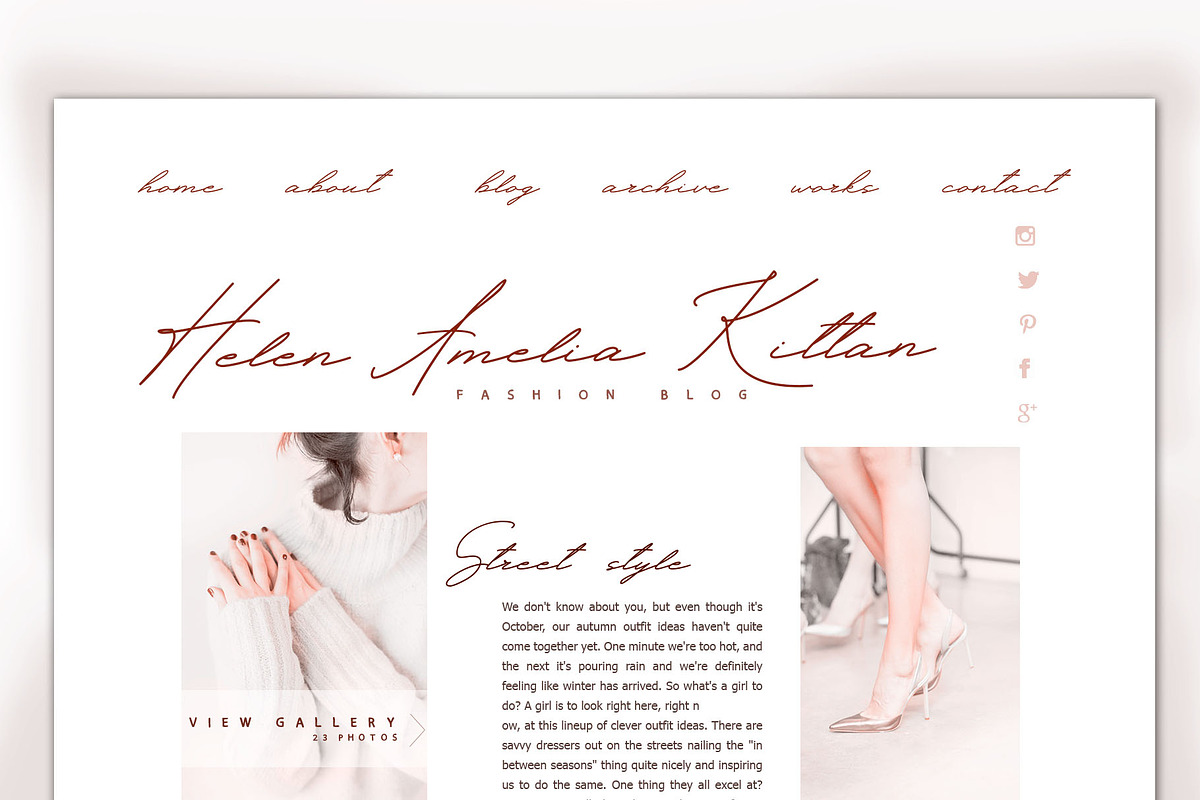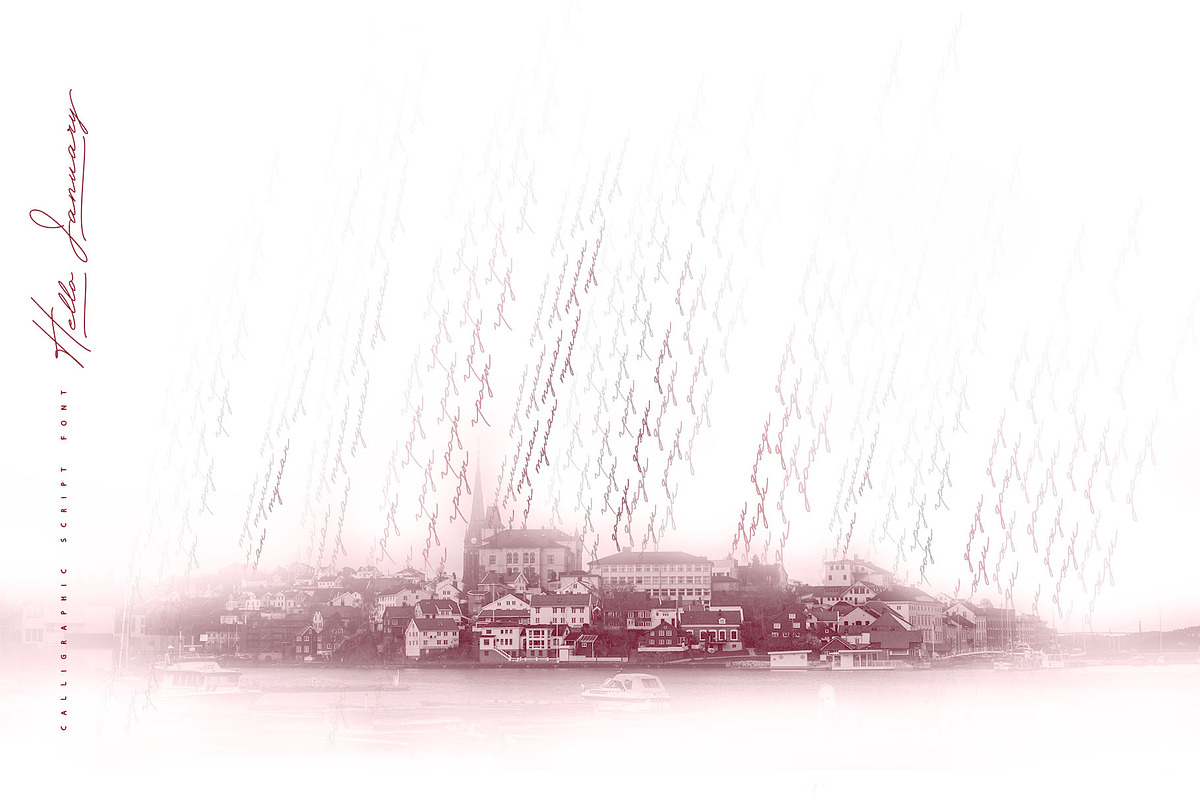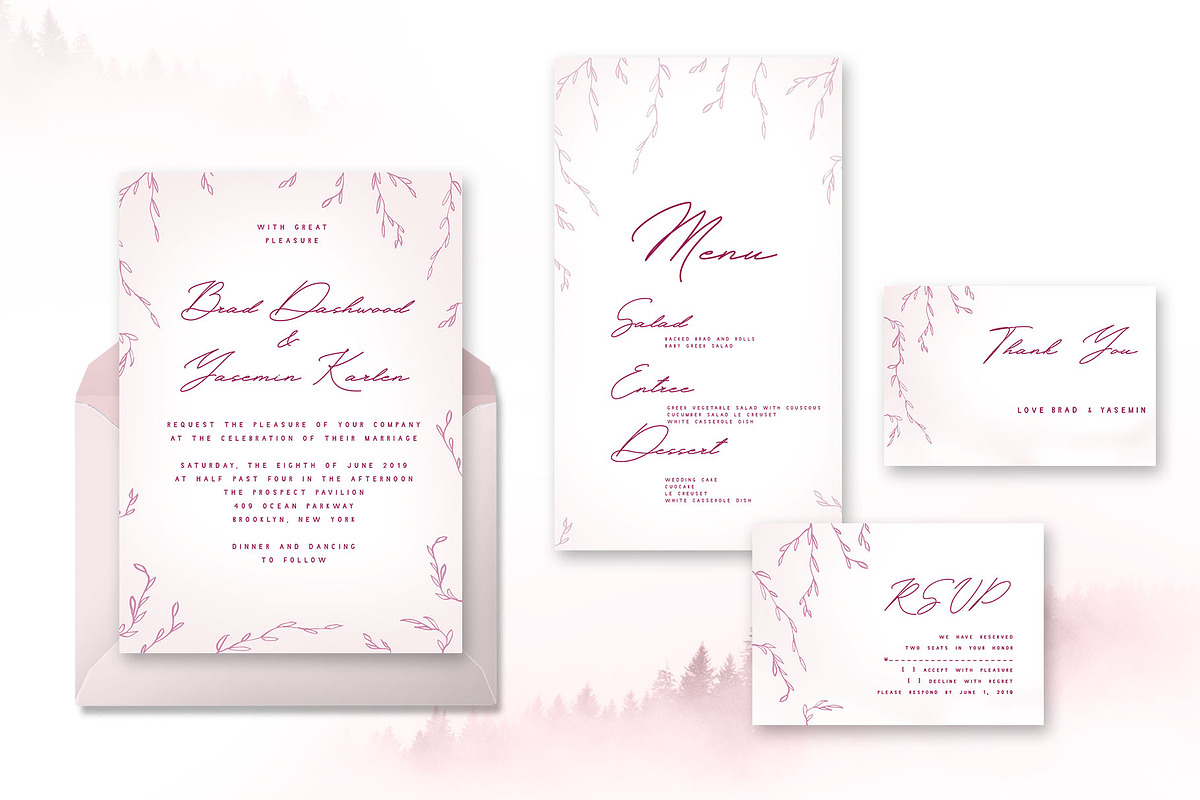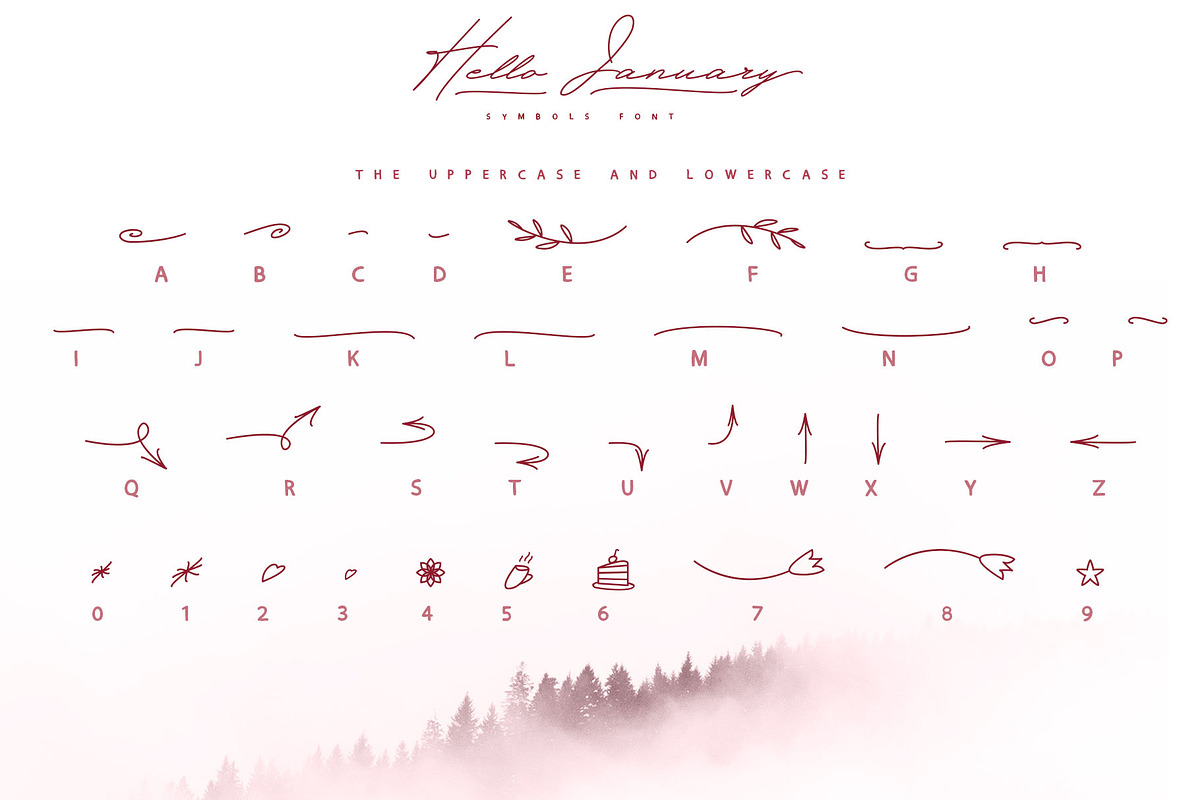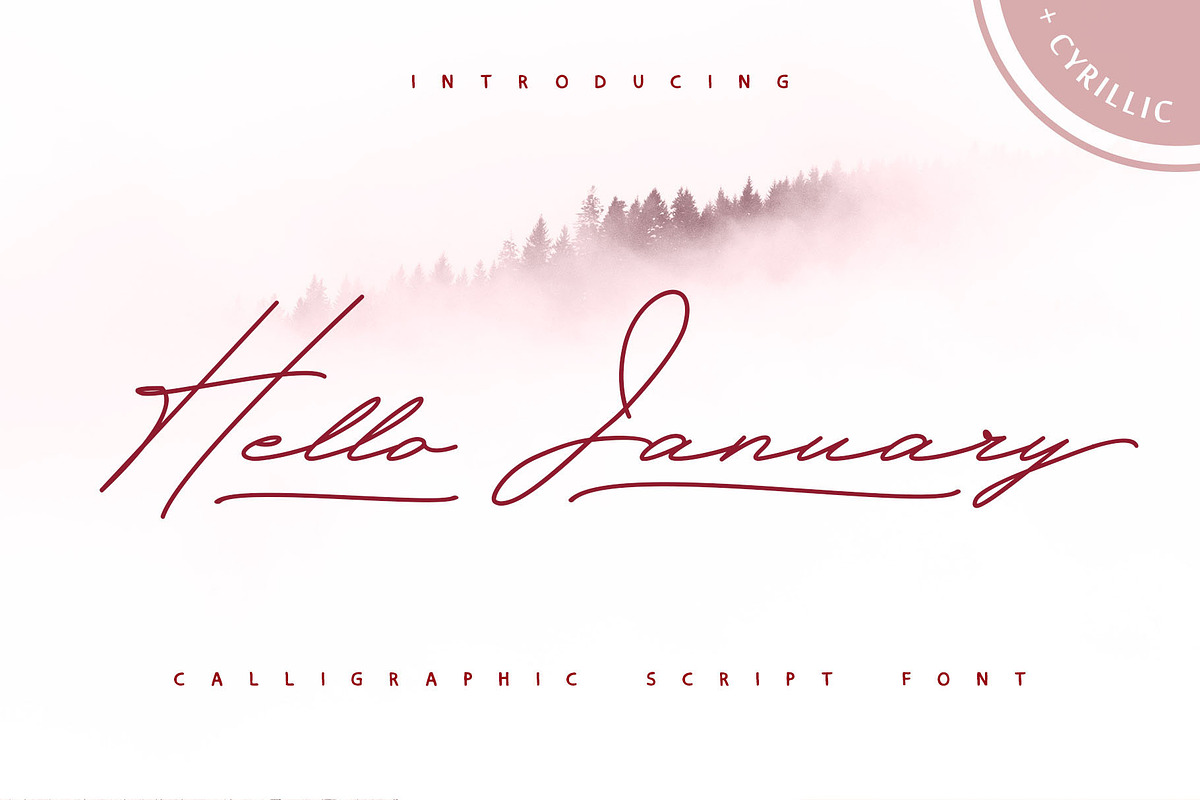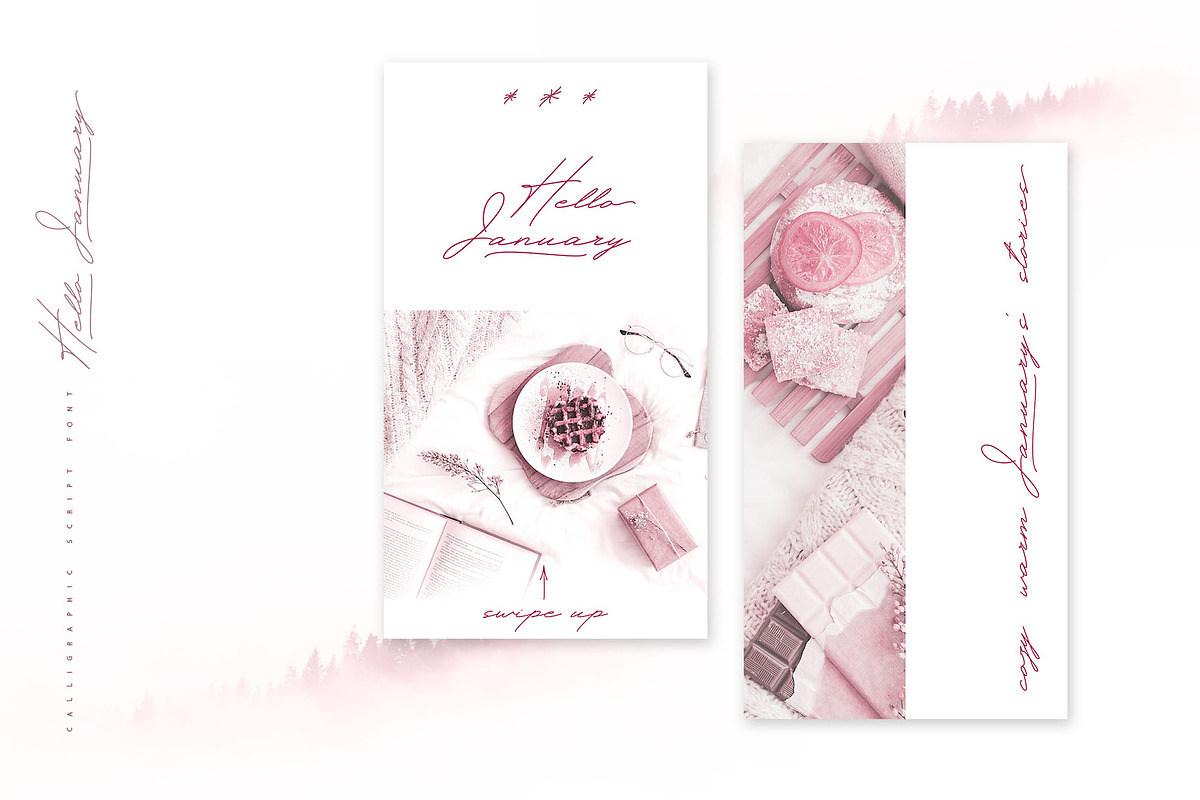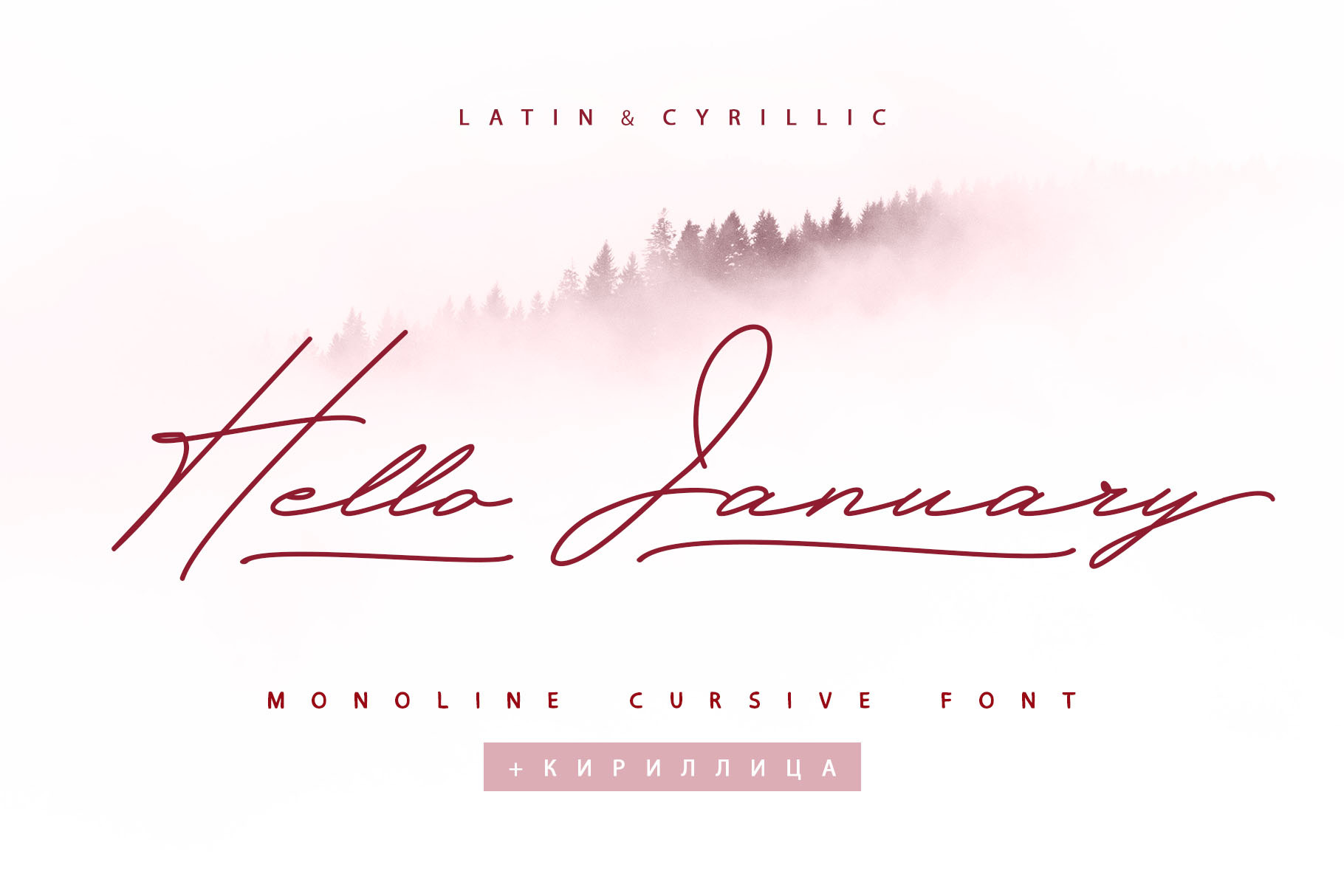
Hello January cursive font Cyrillic
Hello January script font is pretty monoline cursive will look gorgeous on all your designs, wedding stationery, love stories, branding materials, monoline logos, pretty teenage stickers, business and wedding cards, calligraphy Insta quotes, elegant fashion sketches, calligraphy love monograms and much more.
Hello January script font contain the Cyrillic glyphs too.
Hello January script font is a graceful cursive calligraphic script font, plus a Symbols font with 36 lovely hand-drawn swashes and illustrations!
Hello January script font contains a full set of uppercase and lowercase letters and can be used to create a handwritten calligraphy look. Hello January Symbols font with 36 hand-drawn elements, illustrations, and swashes and can help to make your design more original. Combine and arrange swashes and illustrations to create your own designs and make borders, frames, dividers, logos and more (just use A-Z or a-z keys in the included Hello January Symbols font). A different symbol is assigned to ever uppercase or lowercase standard character so you do not need graphics software just simply type the letter you need.
Multilingual Support for 31 languages: Latin glyphs for Afrikaans, Albanian, Basque, Bosnian, Catalan, Danish, Dutch, English, Estonian, Faroese, Filipino, Finnish, French, Galician, Indonesian, Irish, Italian, Malay, Norwegian Bokmål, Portuguese, Slovenian, Spanish, Swahili, Swedish, Turkish, Welsh, Zulu. And Cyrillic glyphs support for Russian, Belorussian, Bulgarian and Ukrainian languages. (Does font support more Cyrillic languages just type a message in the text box below and see if all characters you’ll need are there.)